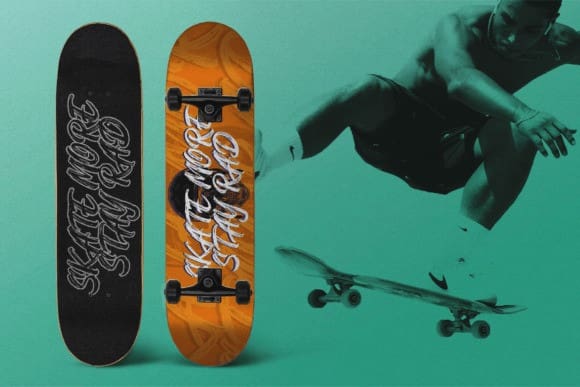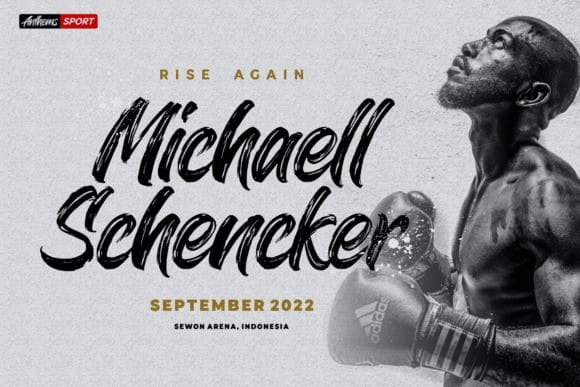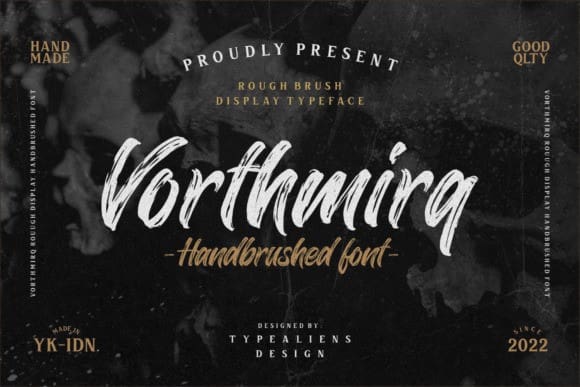
Vorthmirq Brush Font
Vorthmirq Brush Font, is a script font with a texture brush, basically made from digital calligraphy. It is suitable for modern designs such as youth fashion, skateboard brands, quotes, etc. This script font with a texture brush is very flexible because it doesn’t look feminine, making it easy to apply to non-feminine designs as well.